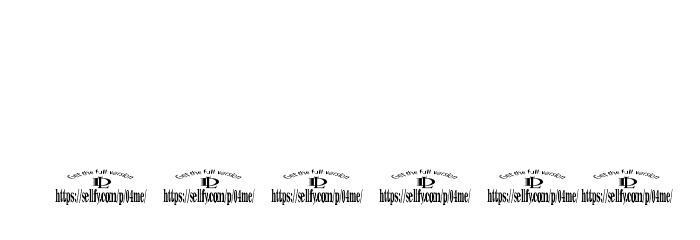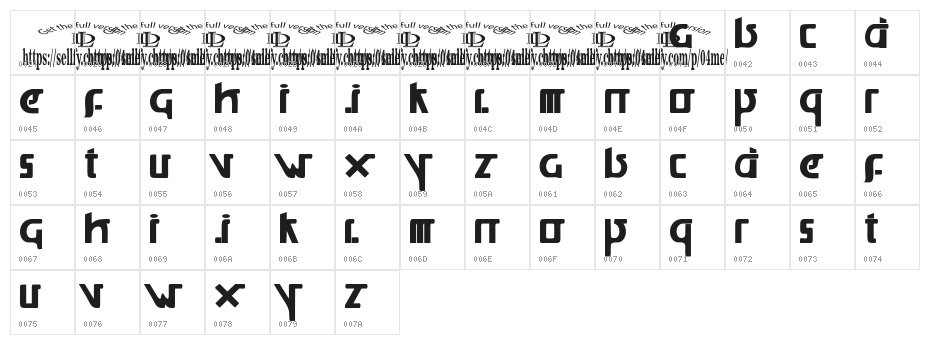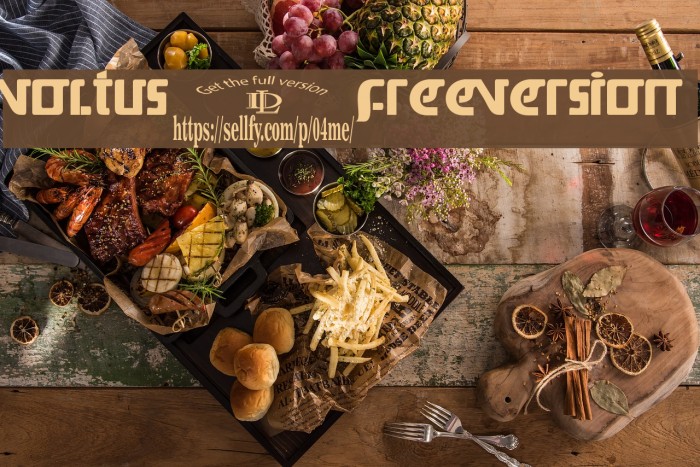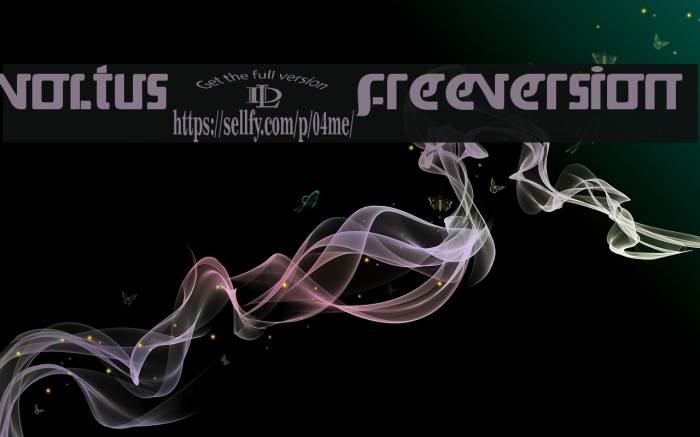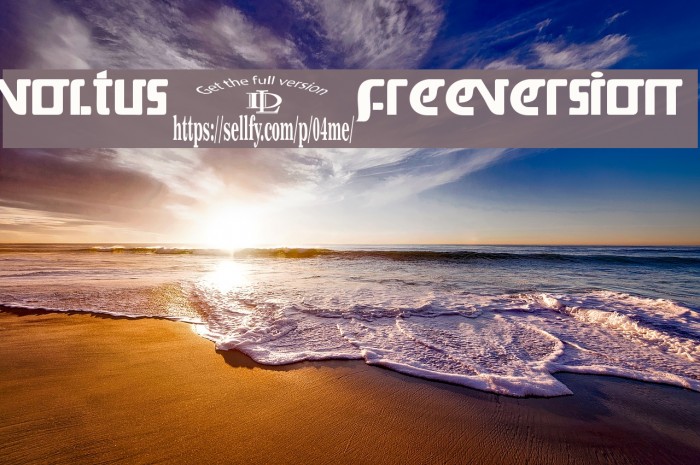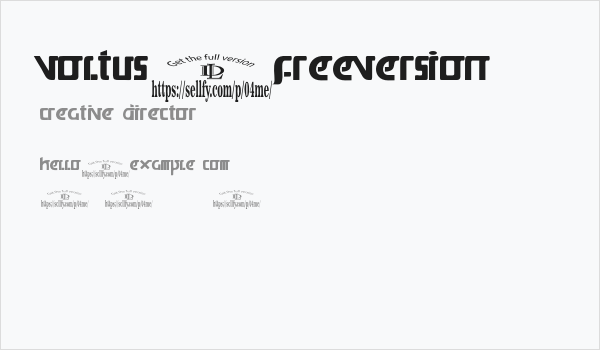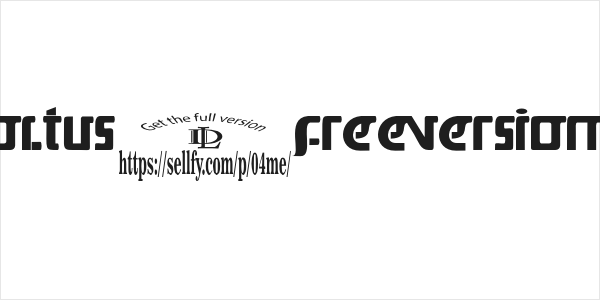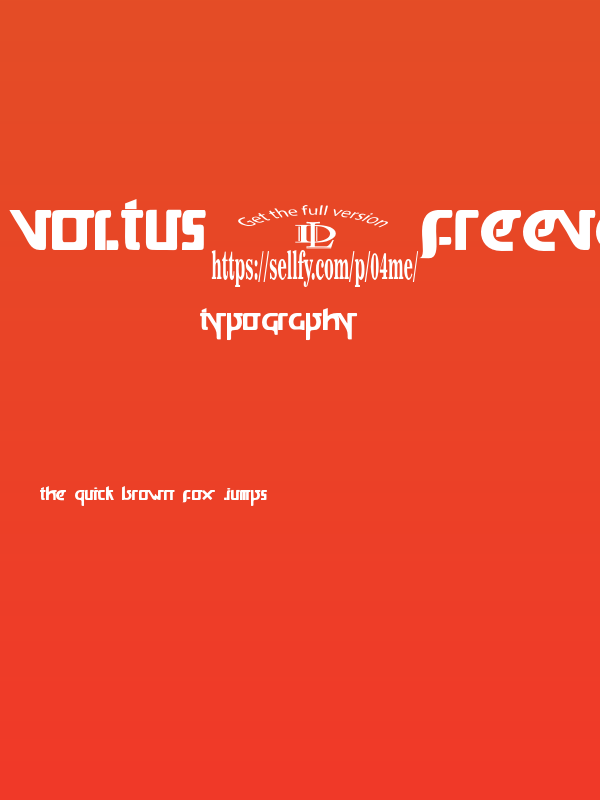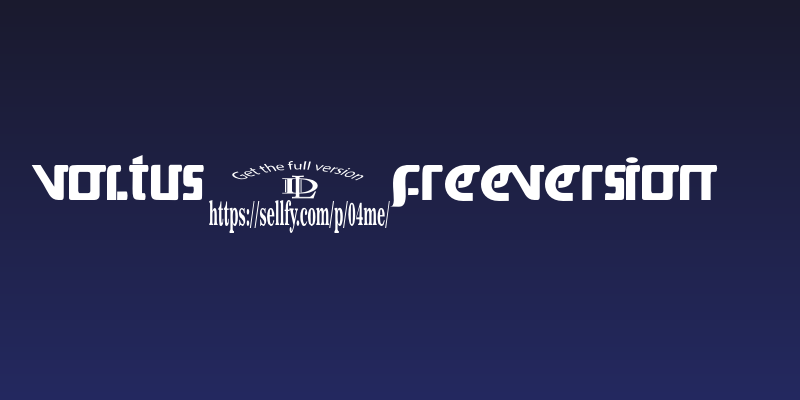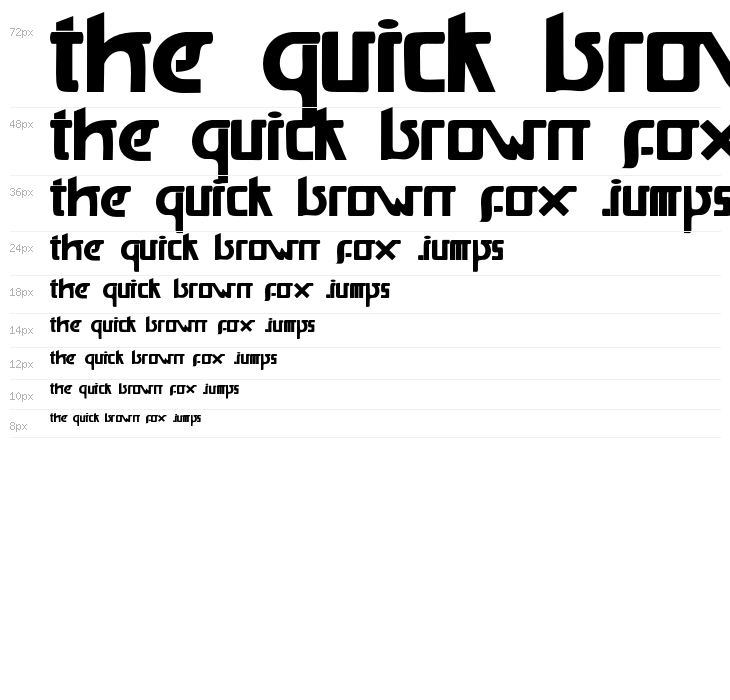
voltus(freeVersion) Font
voltus(freeVersion) Description
This font features a bold and geometric design with a futuristic flair. The characters are constructed with sharp angles and clean lines, creating a sense of modernity and innovation. The uppercase and lowercase letters maintain a consistent style, with some characters exhibiting unique, stylized elements that add to the font's distinctiveness. The overall appearance is striking and eye-catching, making it suitable for projects that require a strong visual impact. The font's structure is solid and compact, with a uniform width that enhances its readability while maintaining a decorative appeal.